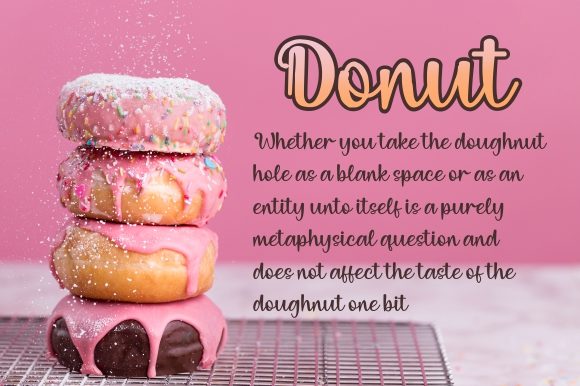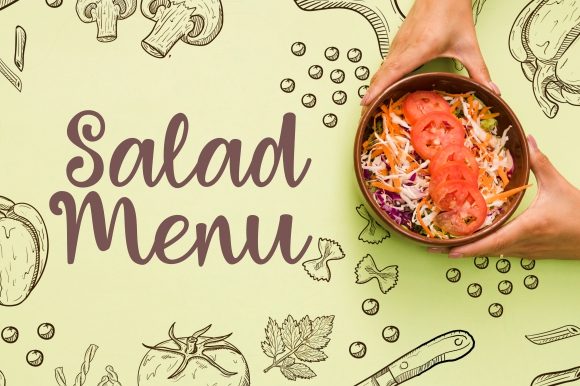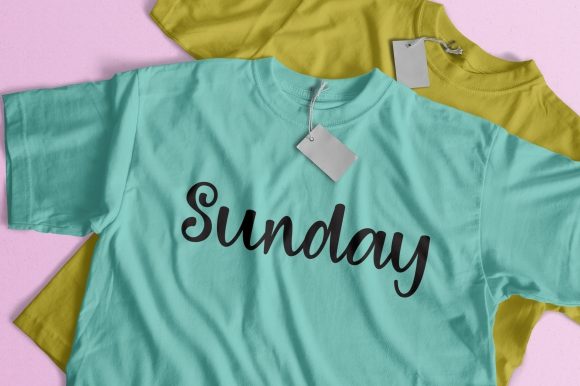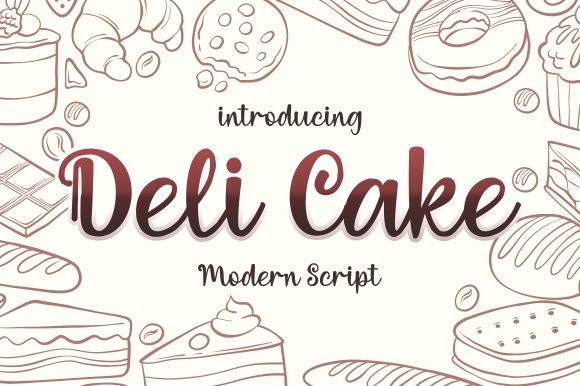
Introduction to Deli Cake Font
Deli Cake is a flowing handwritten font, described by an elegant touch, perfect for your favorite projects.
Key Features of Deli Cake Font
Why Choose Deli Cake Font?
Deli Cake Font offers exceptional quality and versatility, making it a valuable addition to your design toolkit. Whether you’re creating for personal projects or commercial use, Deli Cake Font delivers professional results.